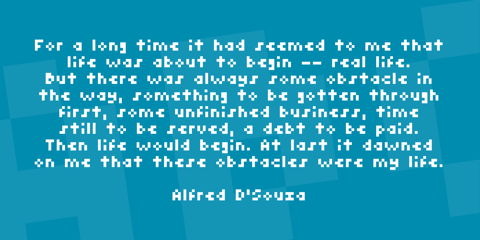
Tiny Font
Pro Legible at extremely small point sizes
Tiny Font stands at just 4 pixels short (5 with descenders), yet includes every printable ASCII character.
Con Pointless to use this for legibility unless you're on an exceptionally small screen device
The tiny point size does not scale well. It's designed for a singular purpose and does well for that, but unless you're working around those limitations the poor readability will slow down your work.
Con Not as pretty as other fonts
Other options look better than Tiny Font at bigger sizes.